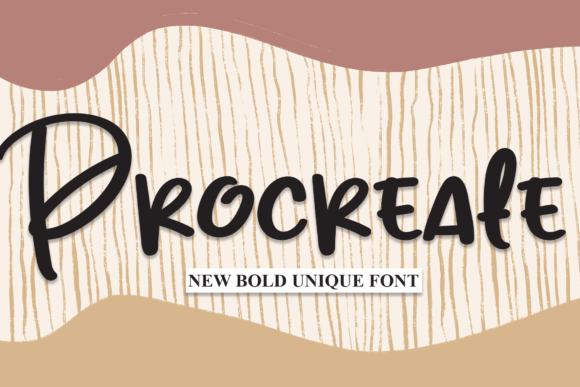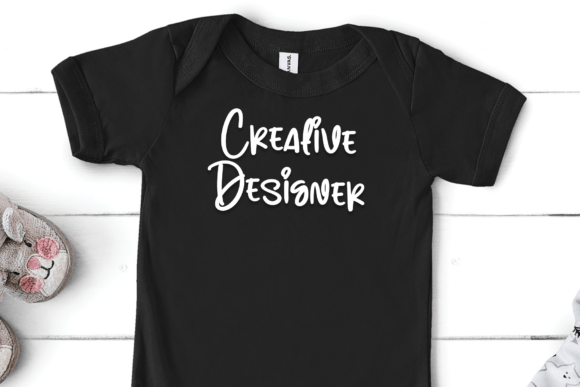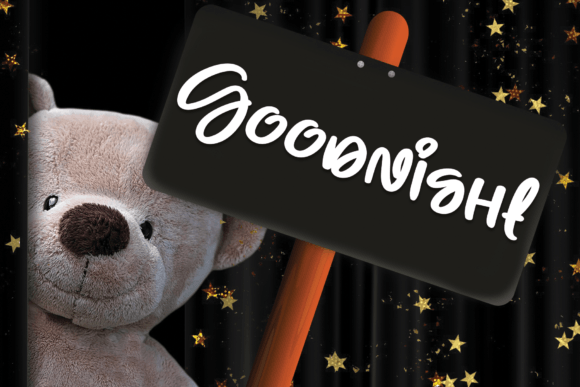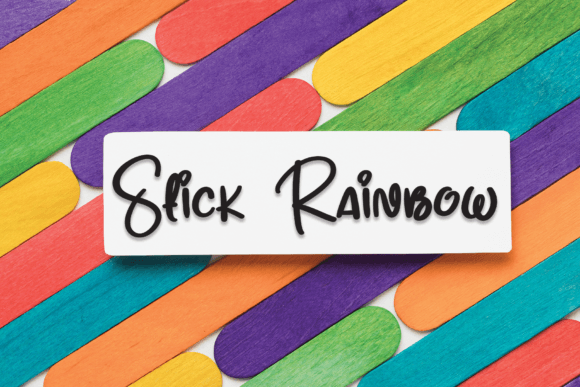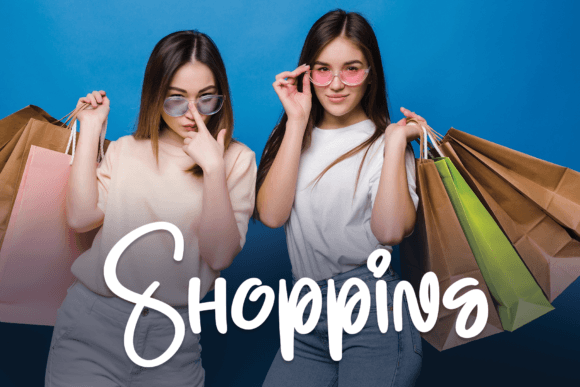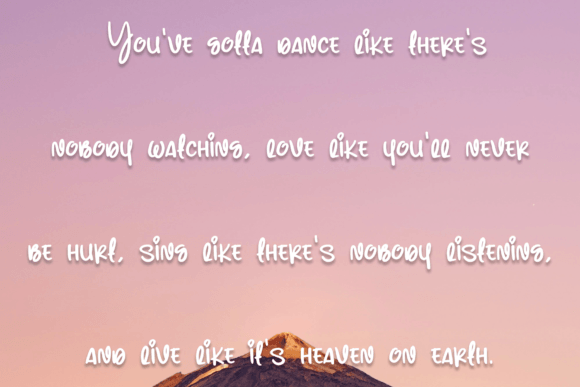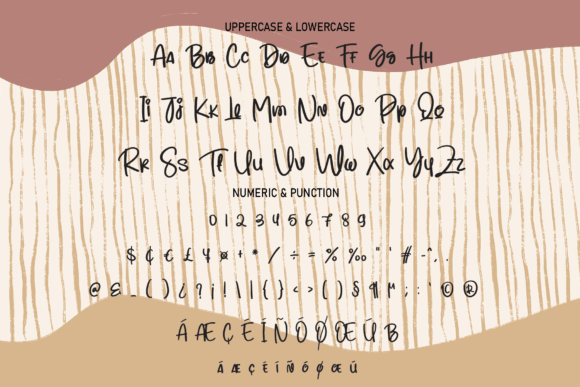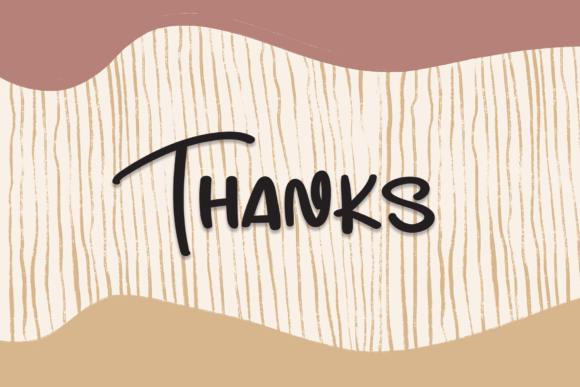
Procreate is a lovely handwritten font perfect for wall displays, wedding invitations, social media posts, logos, advertisements, product packaging, product designs, labels, photography, watermarks, invitations, stationery, and any project that requires a handwritten taste!